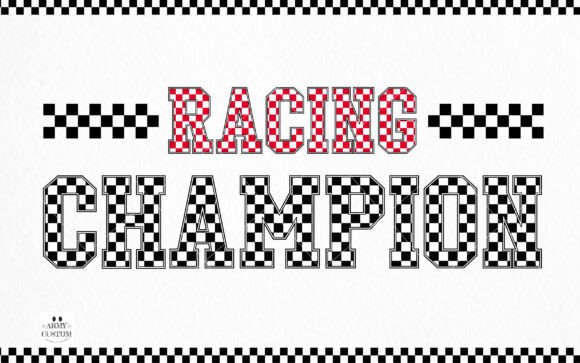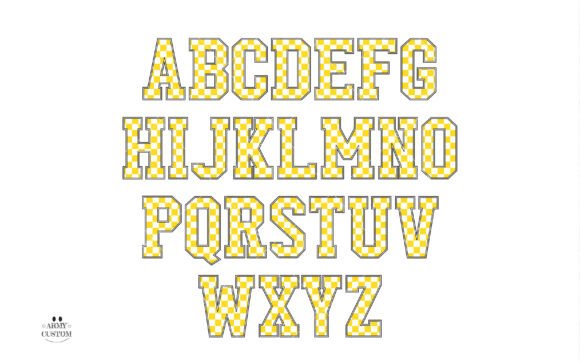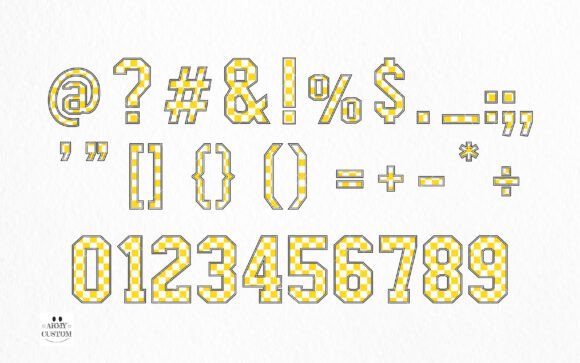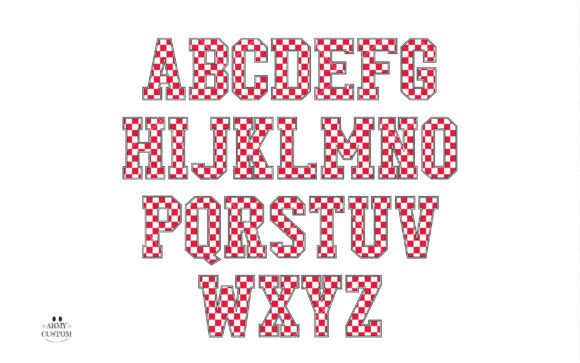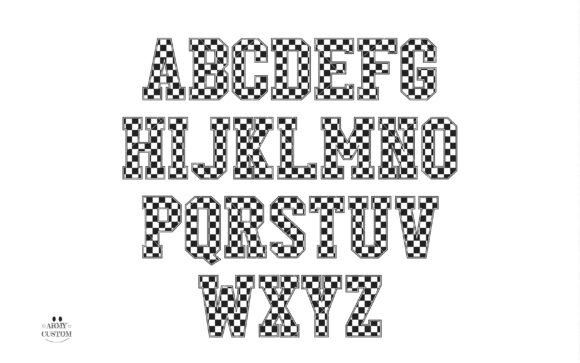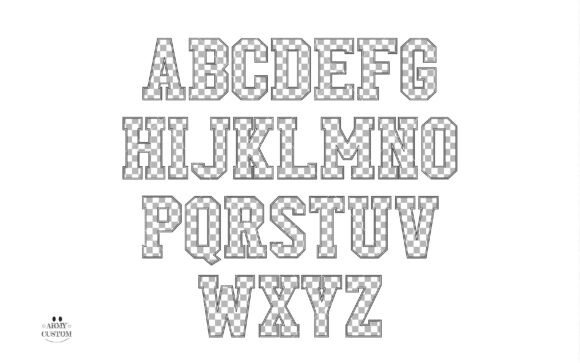
Introducing Checkered Font: Unleash the Thrill of the Race in Your Designs
Are you looking for a font that embodies the exhilarating spirit of racing and competition? Look no further than the Checkered Font, a dynamic and captivating design inspired by the iconic racing flag pattern. This font is perfect for designers and crafters who want to add a touch of speed, triumph, and rivalry to their projects.
The Inspiration Behind Checkered Font
The Checkered Font is designed to capture the adrenaline rush of crossing the finish line first. Its unique design simulates the unmistakable pattern of a racing flag, evoking feelings of excitement, energy, and competition. Whether you’re working on a project related to sports, racing, or simply want to add a bold and vibrant touch to your design, this font is sure to deliver.
Key Features of Checkered Font
- Racing flag style design: The Checkered Font boasts a striking design that mimics the classic racing flag pattern, making it perfect for projects that require a bold and dynamic look.
- Adrenaline-packed aesthetic: The font’s design is carefully crafted to convey the thrill of victory, making it ideal for projects that require a motivational and energetic vibe.
The Checkered Font is an excellent addition to any designer’s or crafter’s toolkit. Its unique and captivating design makes it perfect for a wide range of projects, including:
- Sports-related designs: From racing team logos to sports-themed party invitations, this font is sure to bring a touch of excitement and energy to your designs.
- Racing-inspired crafts: Use the Checkered Font to create custom signs, banners, or decals that showcase your love for racing and competition.
- Bold and vibrant designs: Whether you’re working on a project that requires a dynamic and eye-catching font or simply want to add some personality to your design, the Checkered Font is an excellent choice.